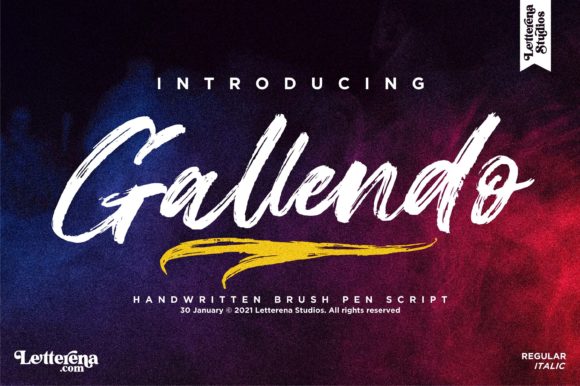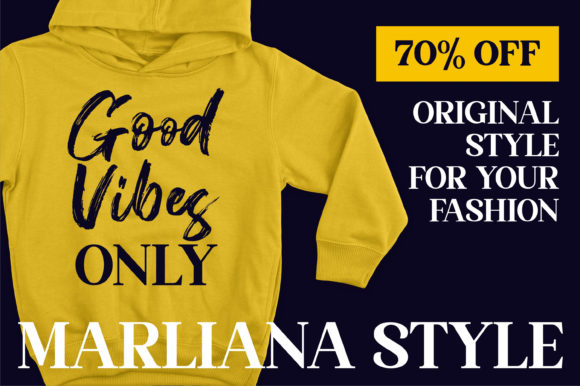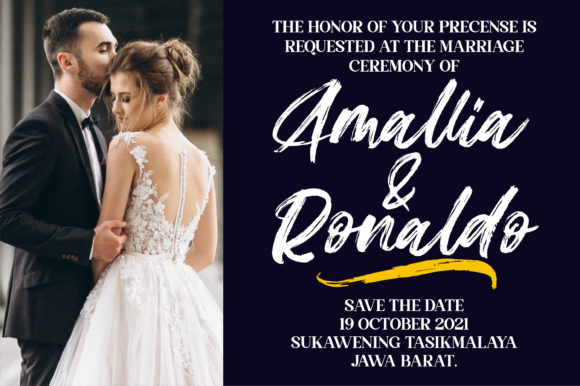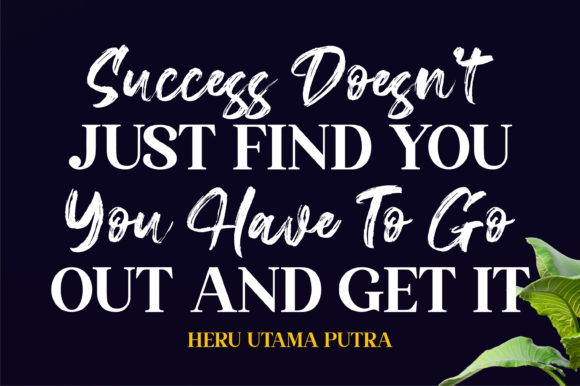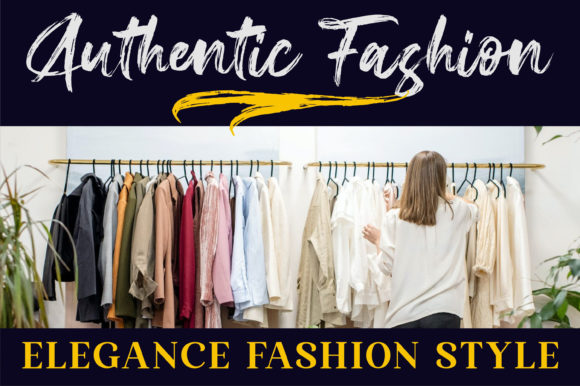
About Gallendo Font
Gallendo is a rough textured handwritten font. This font reads as strong, confident, and dynamic and can add tons of nostalgic character to your designs.